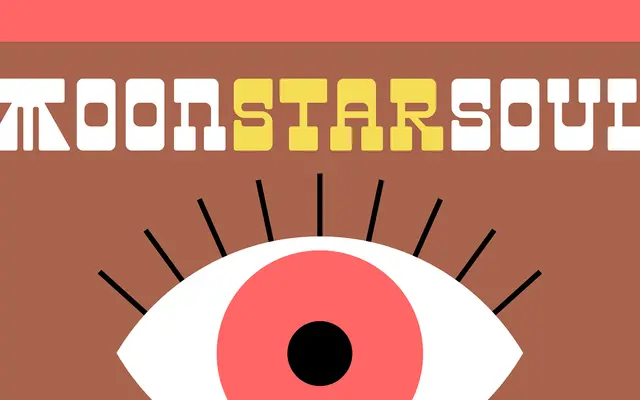
Moon Star Soul
A bold retro display face modelled on mid-20th century vinyl record lettering, with a flavour of funk and hippie-era graphic design.
Drawn from the visual language of mid-century vinyl records, the typeface mixes funk, counterculture and futurist styling into a single decorative face. It is aimed squarely at projects that want an authentic period flavour without reaching for stock pastiche. The bold weight and nostalgic character suit poster work, album artwork and branding with a retro brief.
A decorative display face with strong period styling drawn from mid-century vinyl record aesthetics, funk and hippie culture, placing it firmly in the retro display category.